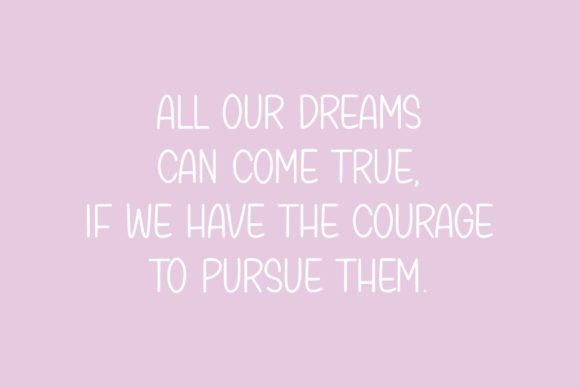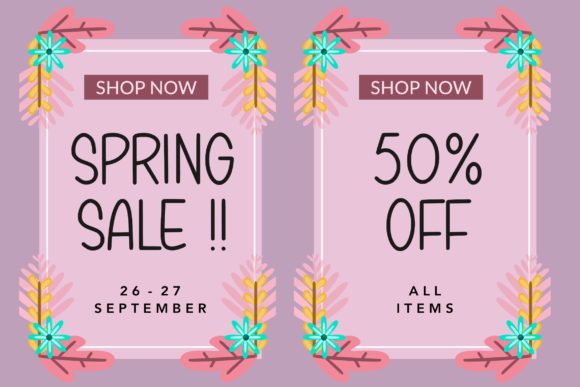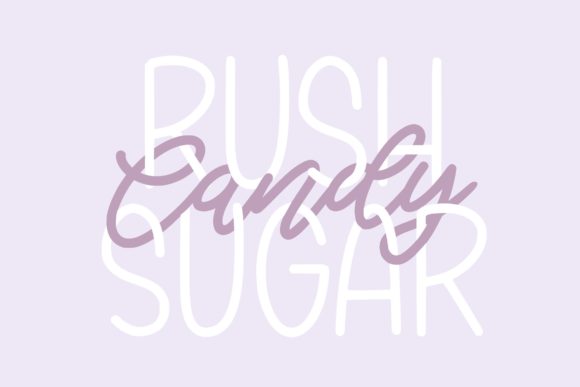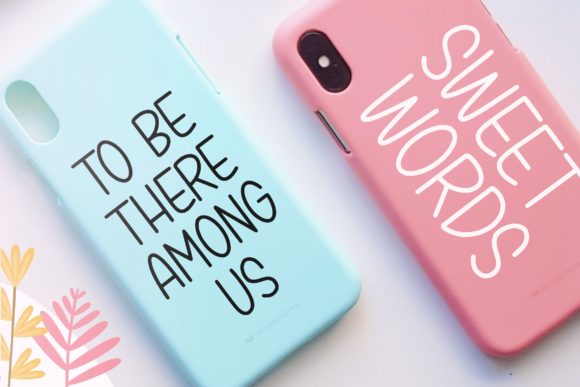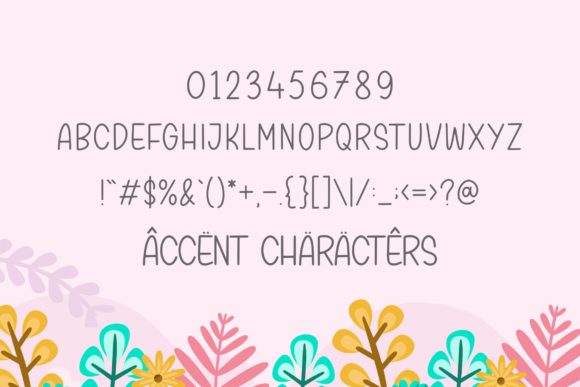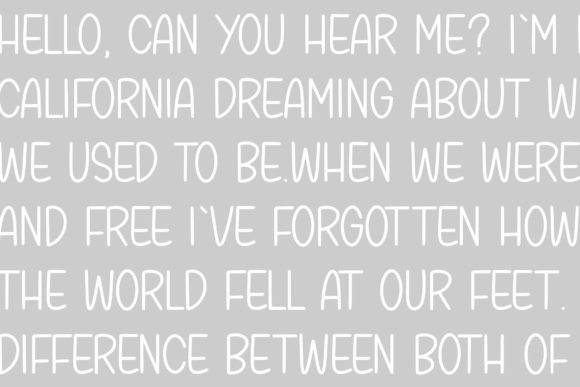
Introduction to Goldstick Font
Goldstick is a fun monoline handwritten font.
It is perfect for product packaging, branding project, magazines, social media posts, wedding invitation, or just used to express words above the background .